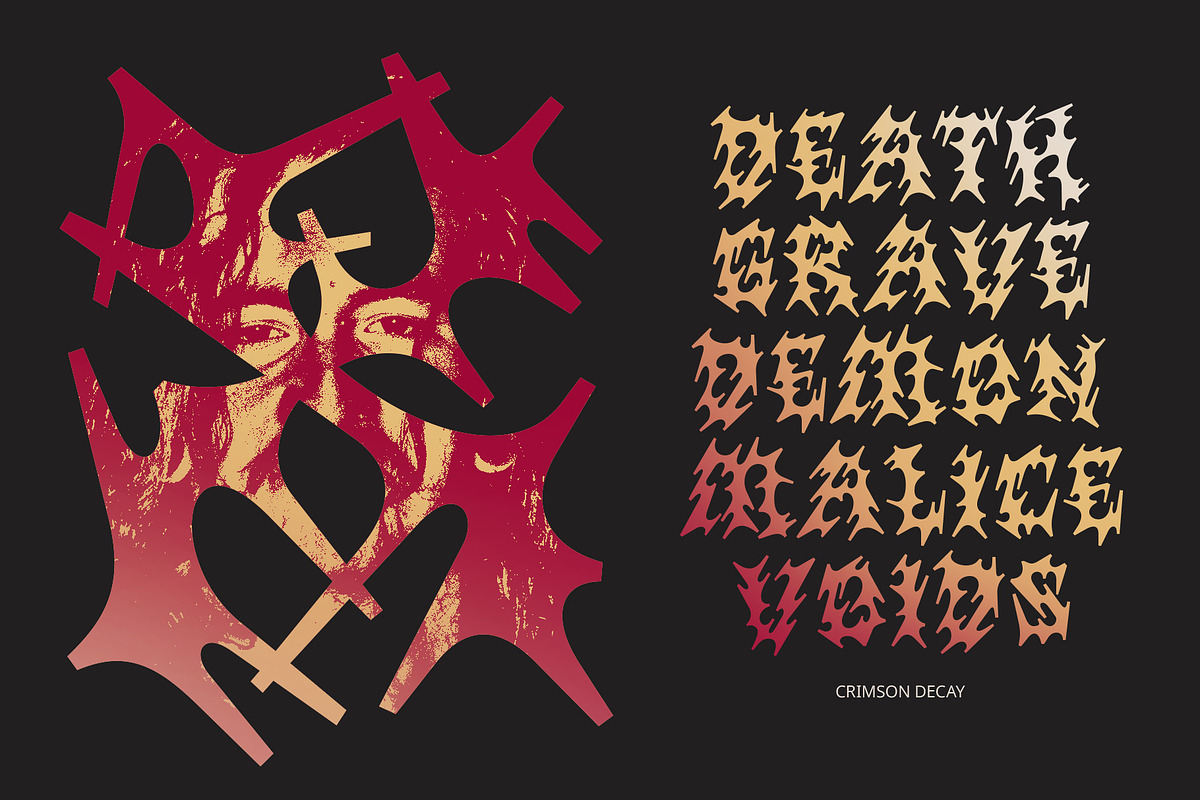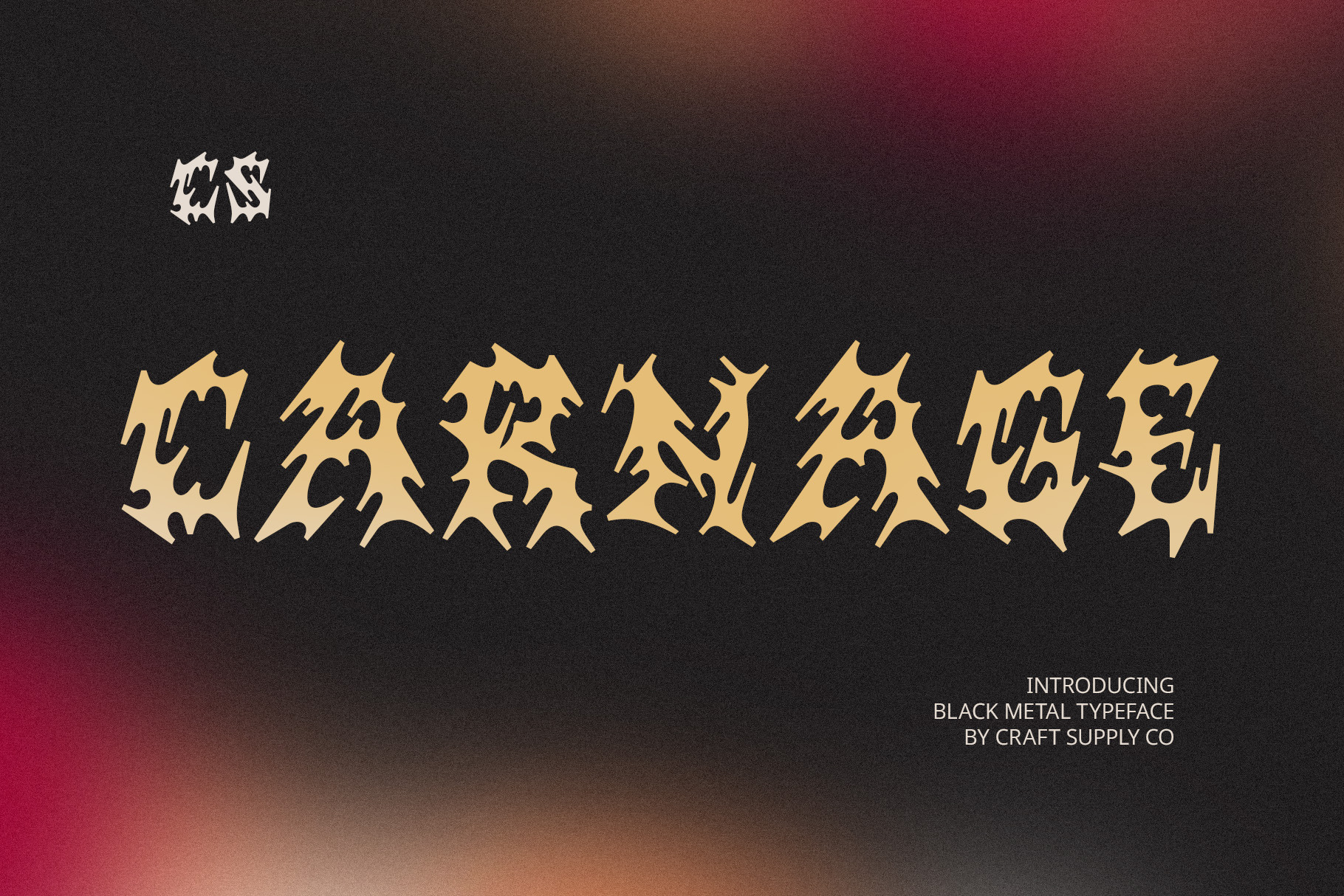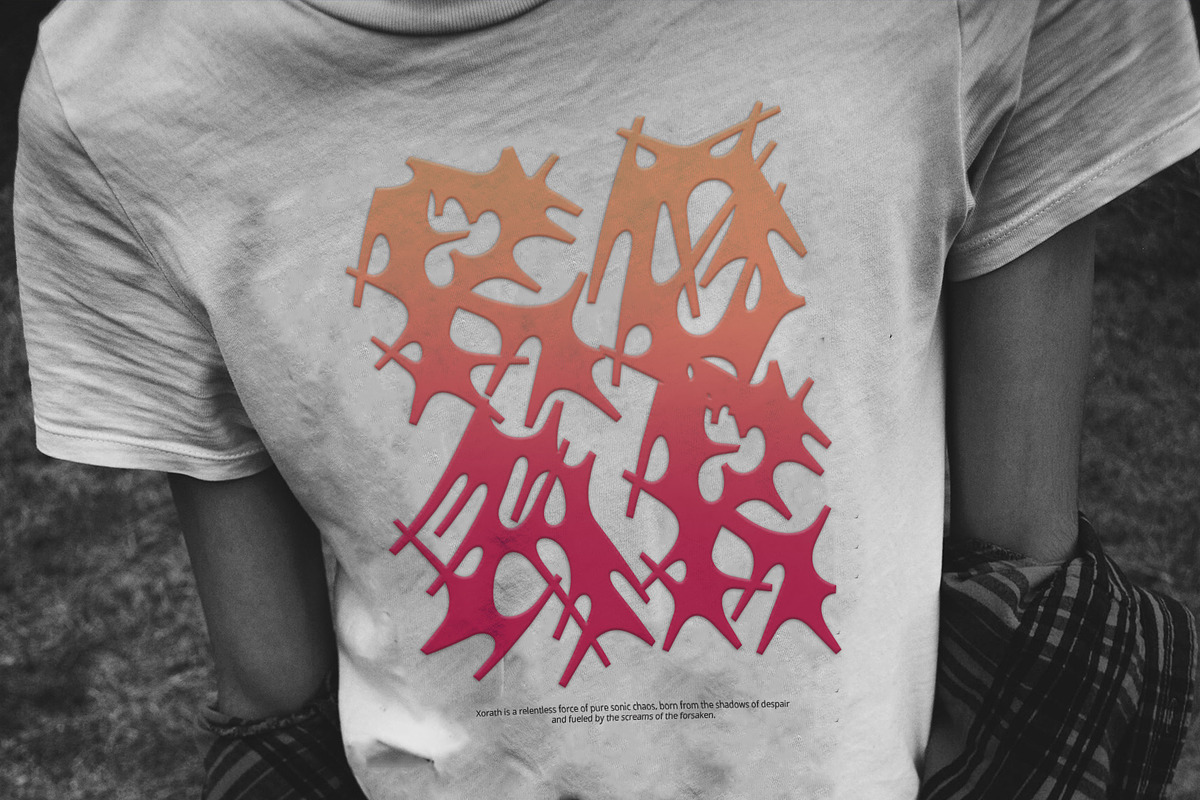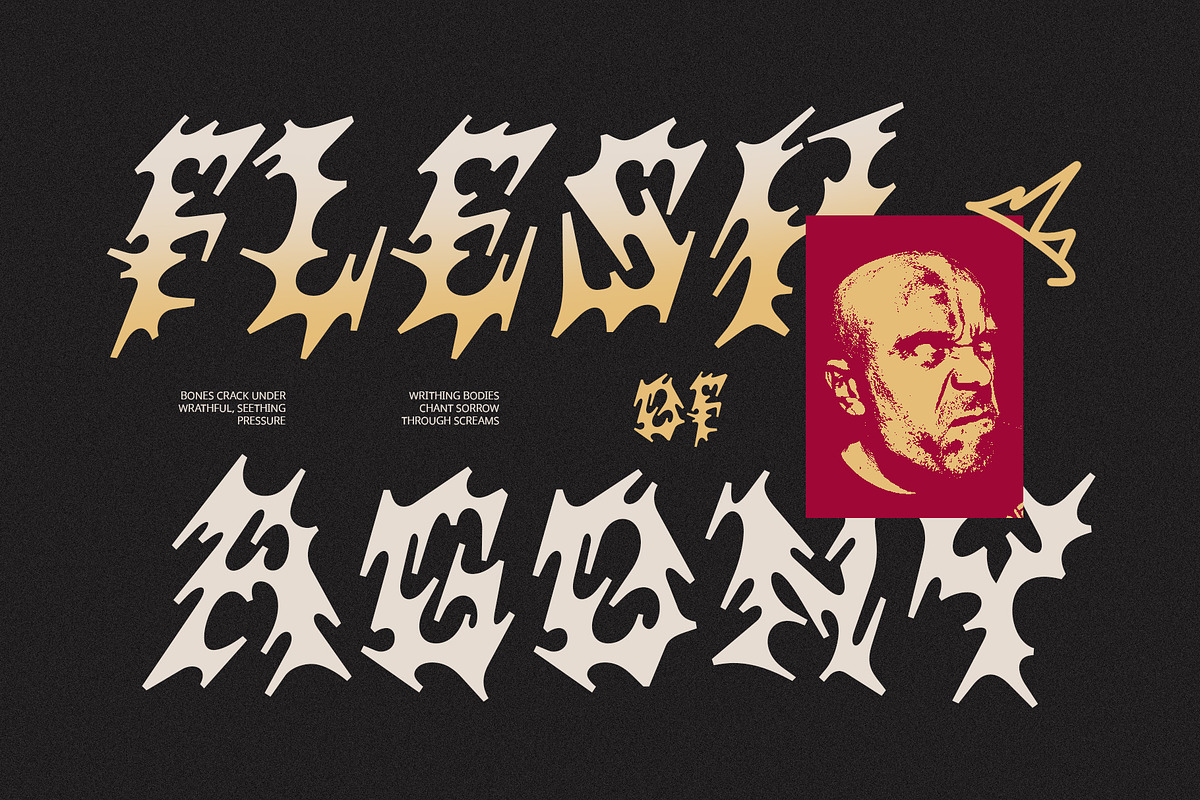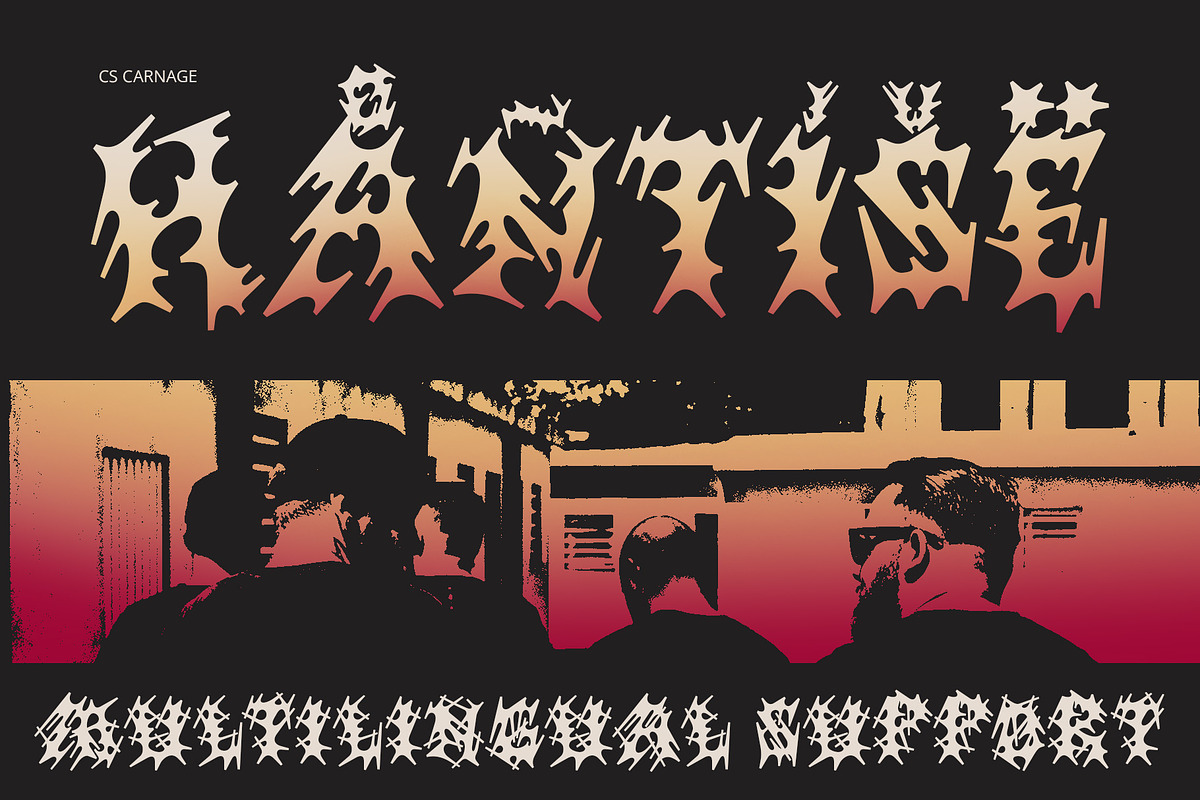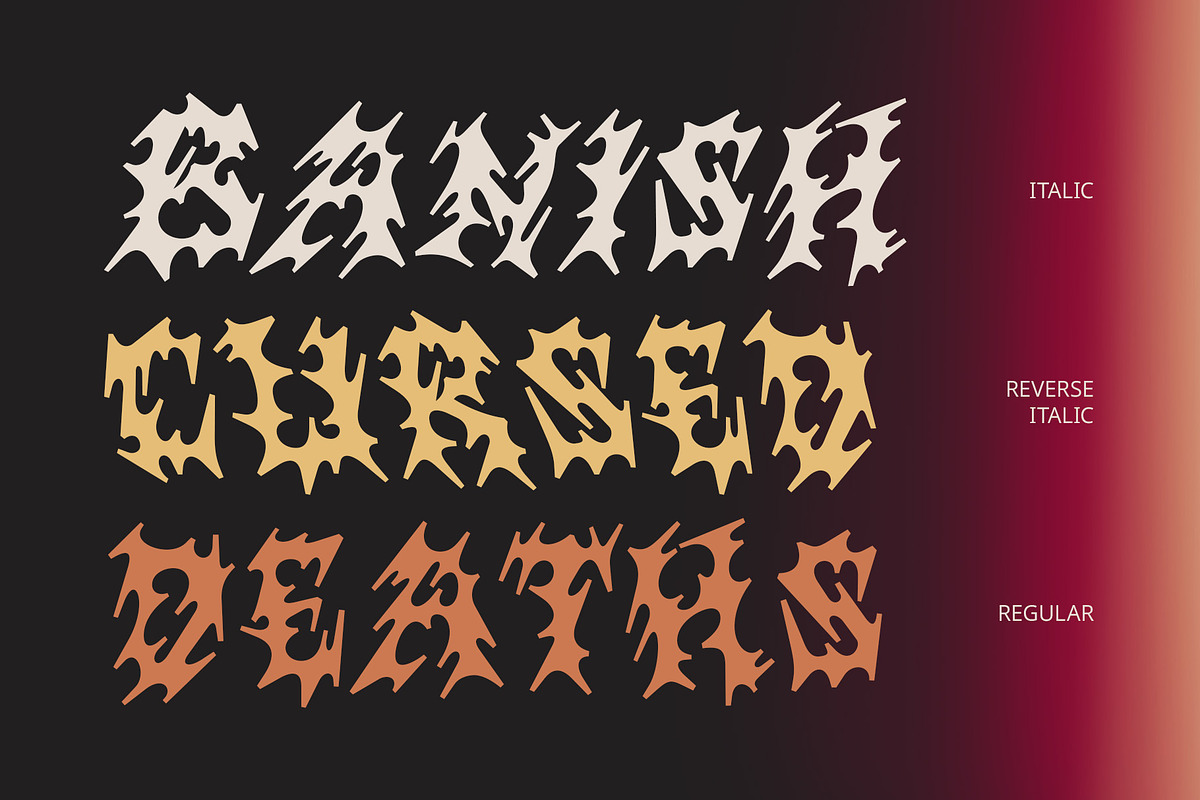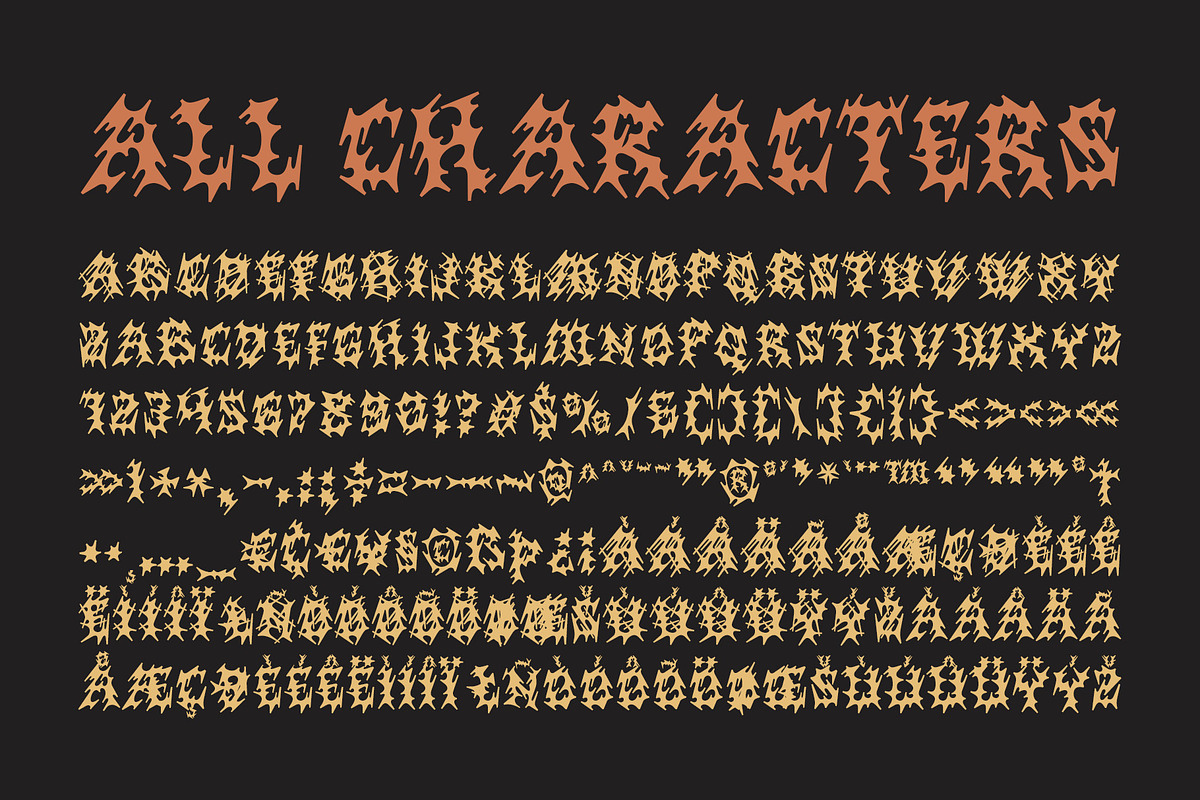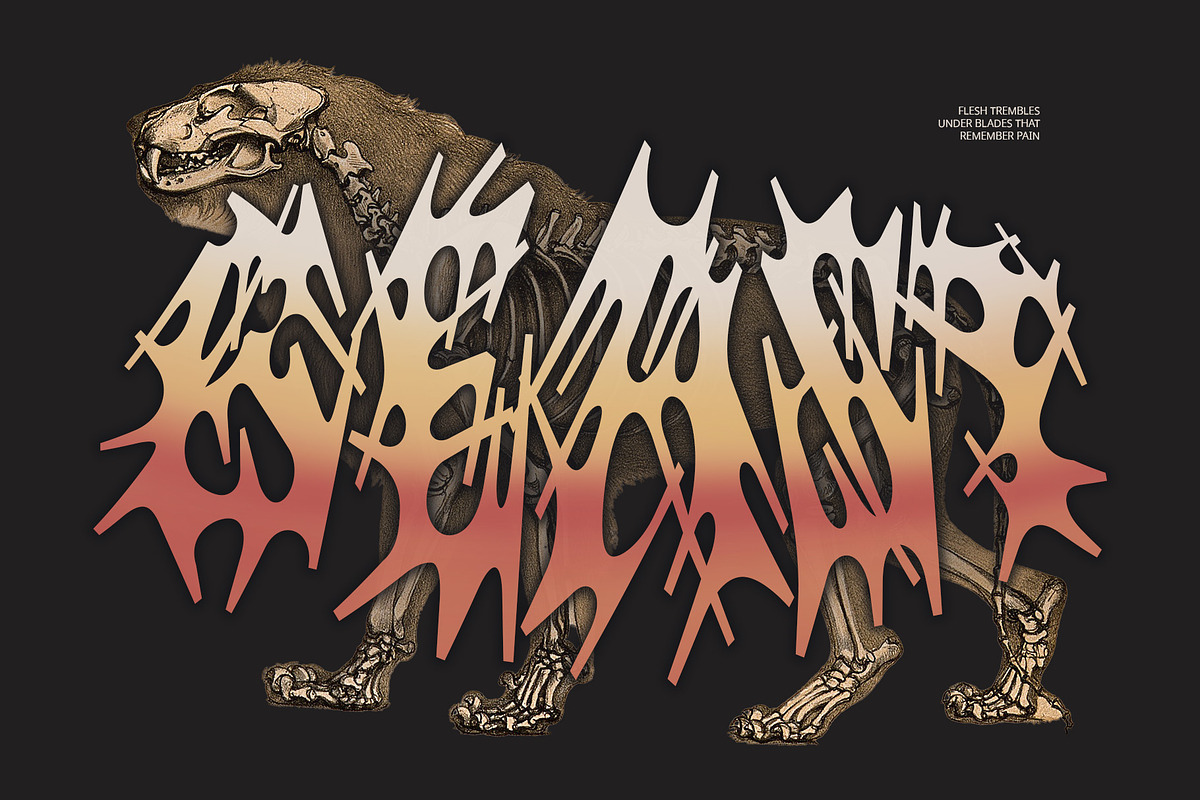
CS Carnage – Black Metal Font
CS Carnage – Black Metal Font: Chaos in Typography
Black Metal Display Font CS Carnage is a black metal display font that embraces chaos, darkness, and artistic rebellion. With its razor-sharp points, spiked limbs, and complex, fractured forms, it perfectly reflects the raw, aggressive energy of the extreme metal scene.
Sharp, Spiky, and Symbolic Letterforms The letterforms in CS Carnage are far from conventional. Each character is crafted with an almost ritualistic flair—appearing more like arcane symbols than standard letters. This visual complexity gives it a hauntingly powerful presence, ideal for designs that defy the ordinary.
Dark and Distinctive Aesthetic Rooted in the underground and born of rebellion, CS Carnage exudes a mysterious and intimidating vibe. Its chaotic structure and jagged detailing evoke an unfiltered emotional force, making it an excellent fit for horror themes, band logos, or visuals demanding shock and intensity.
Ideal for Subcultural and Experimental Design Whether used in black metal concert posters, zines, dark fashion branding, or avant-garde art, CS Carnage delivers a statement that’s impossible to ignore. It’s a font for those who create outside the lines—bold, raw, and unmistakably unique.
A Fusion of Intimidation and Artistry While aggressive in form, CS Carnage carries a unique artistic weight. The intricacy of its shapes and the balance of its chaos reveal a deep visual craftsmanship—perfect for turning typographic violence into expressive beauty.
- CS Carnage Regular
- CS Carnage Italic
- CS Carnage Reverse Italic